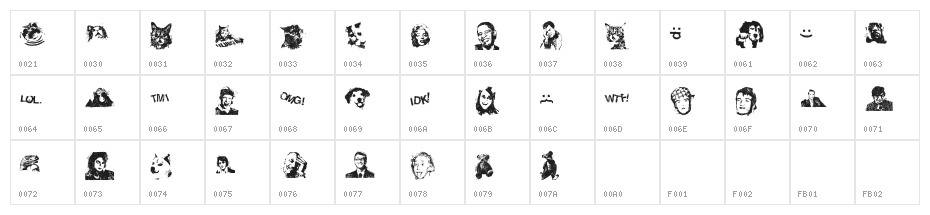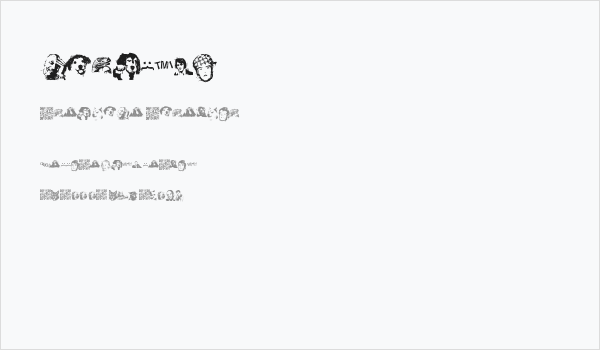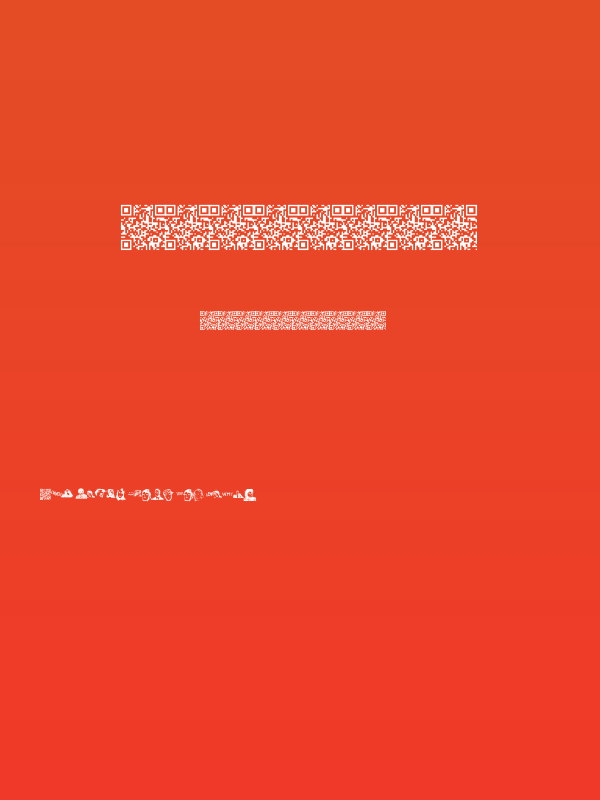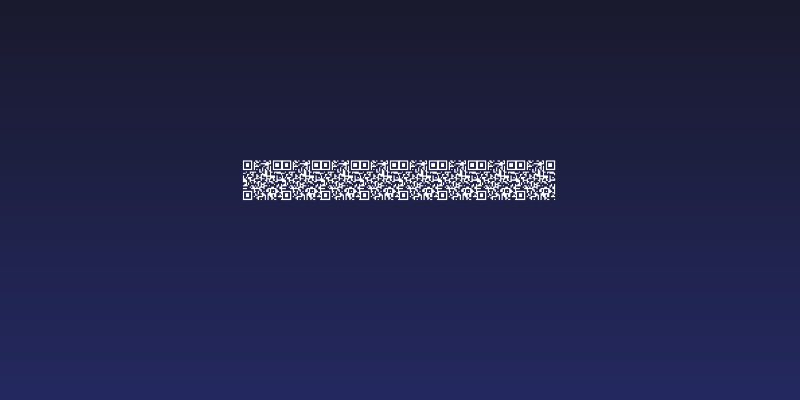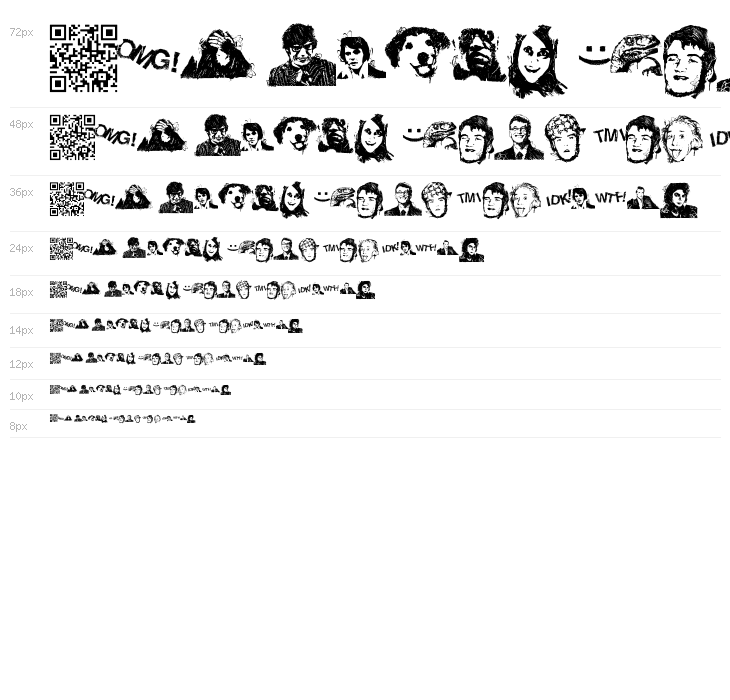
viralfun Font
viralfun Description
A highly decorative and playful font composed of meme-inspired illustrations, famous faces, animals, and internet slang expressions, with each character represented by a unique graphic rather than traditional letterforms.
| Overall Style | Decorative, Playful, Meme-inspired |
| Use Case | Logos, Headlines, Posters, Social media content |
| Proposed Projects | Social media graphics, meme generators, party invitations, youth-oriented branding, novelty merchandise. |